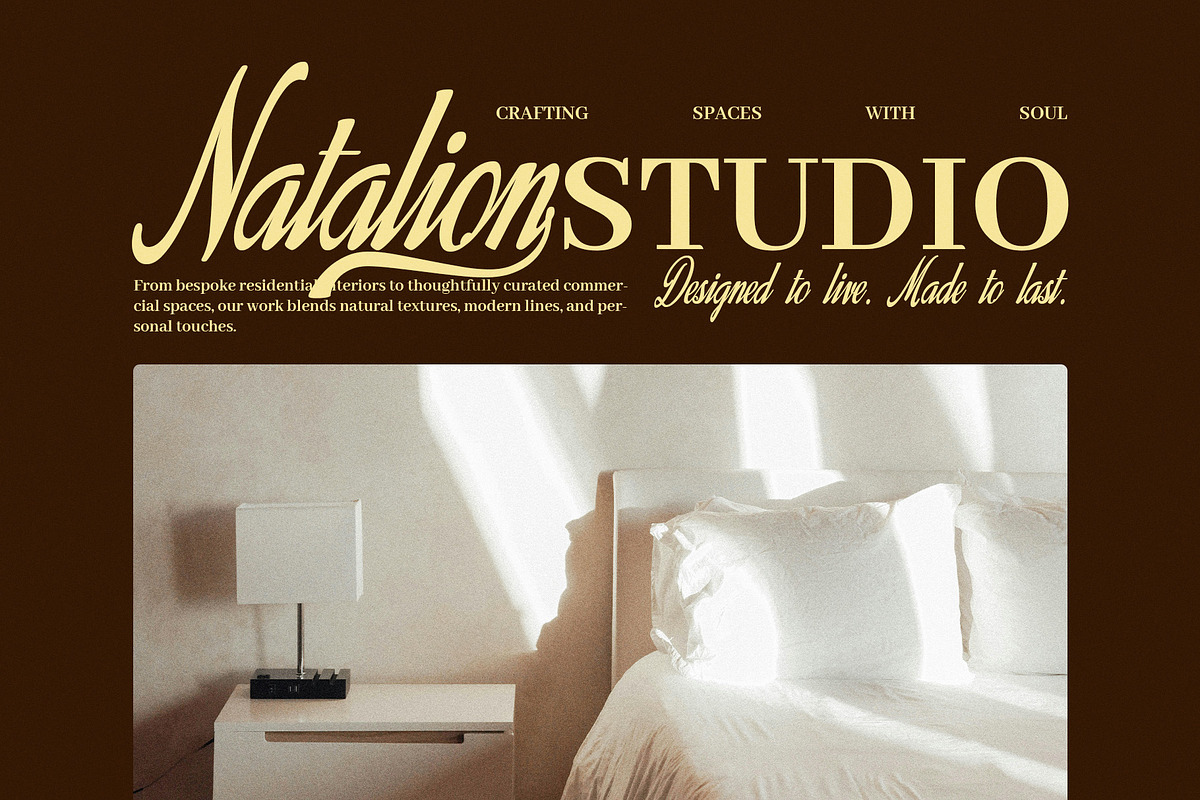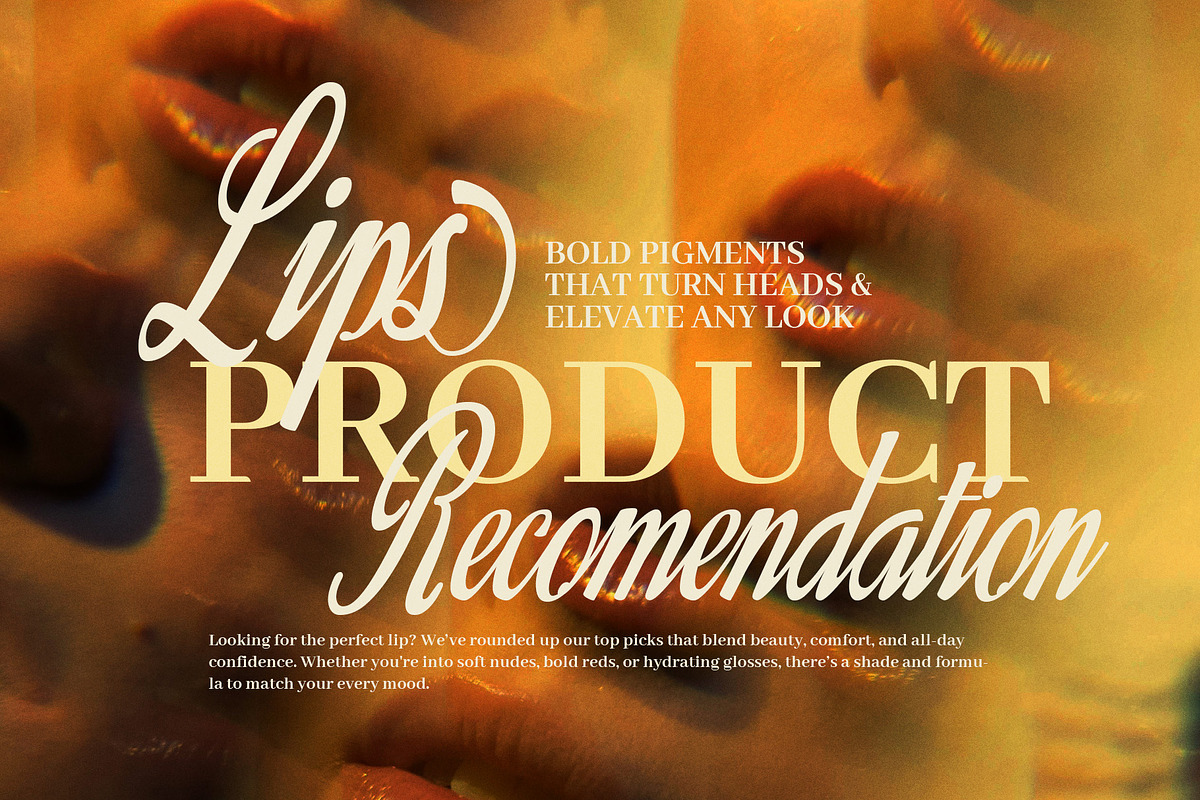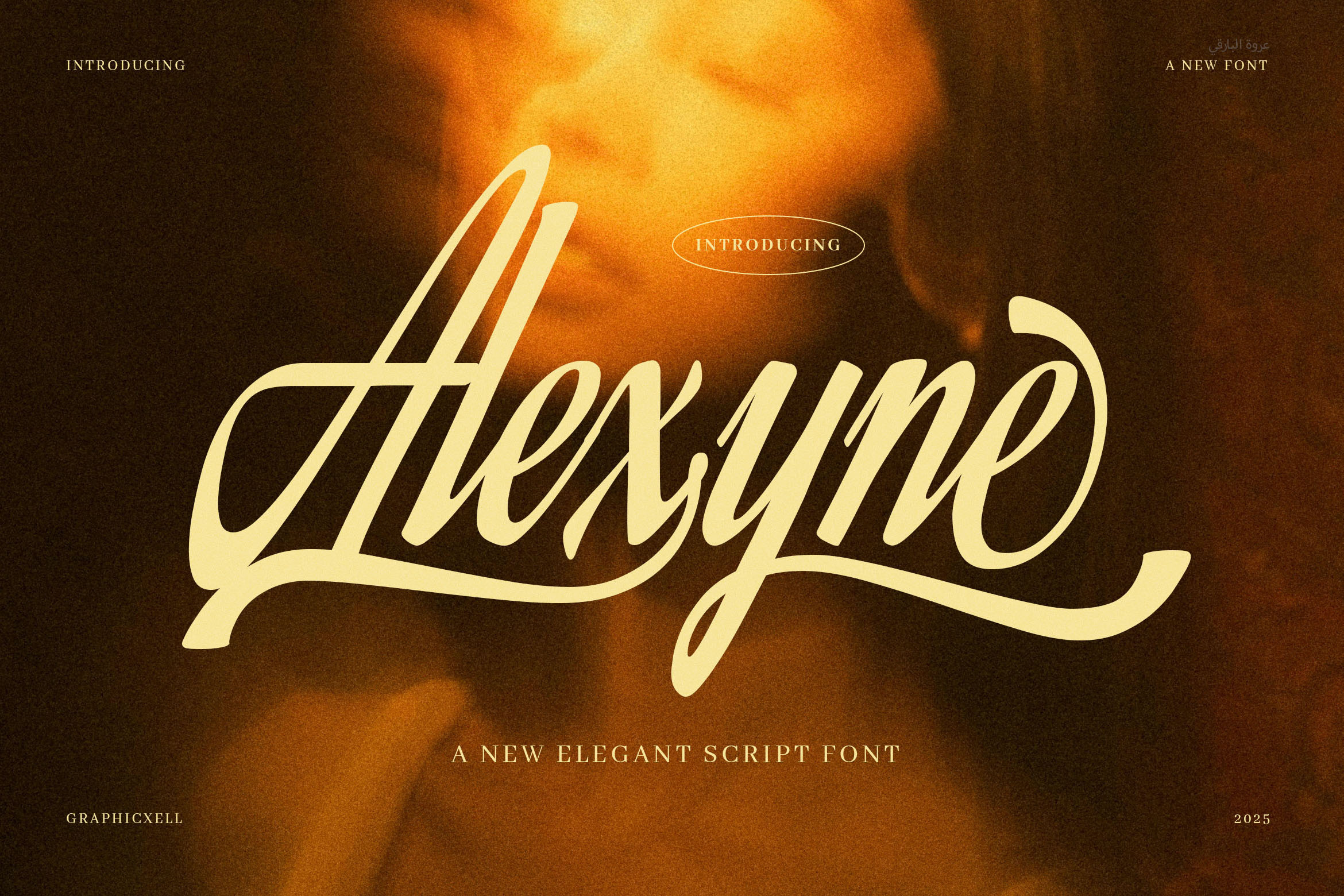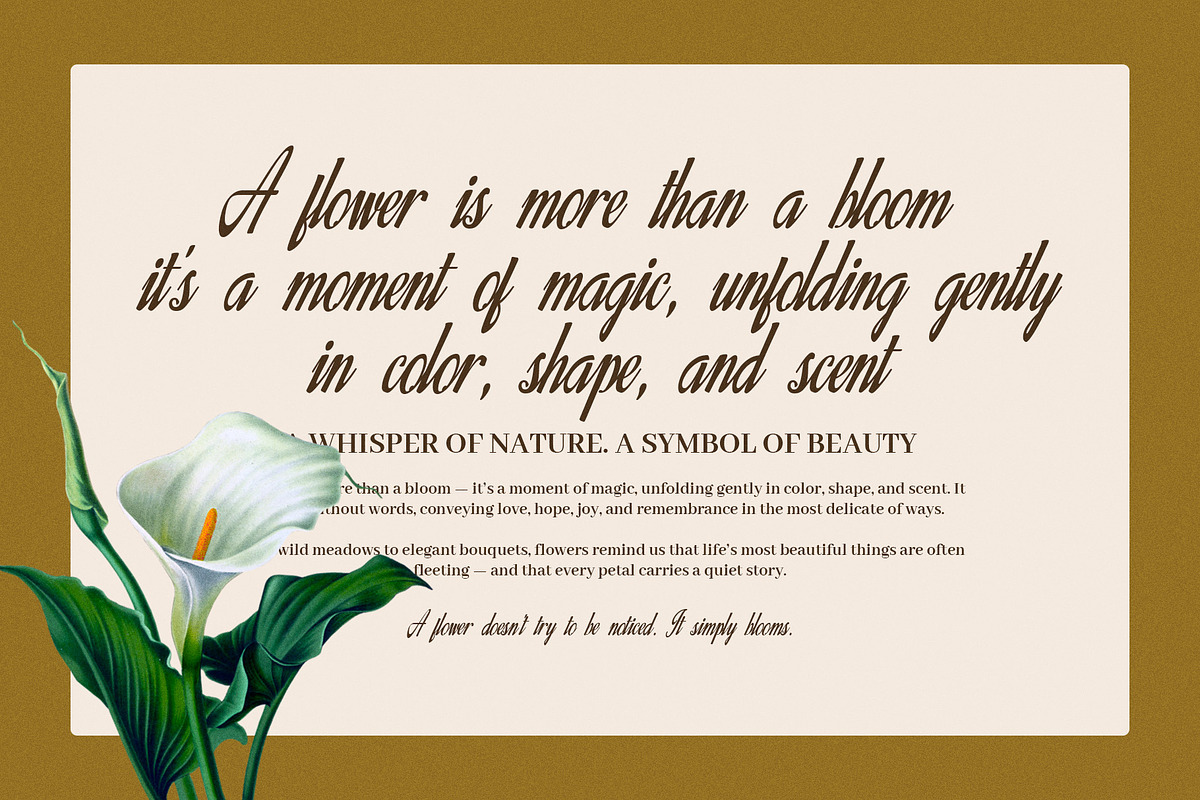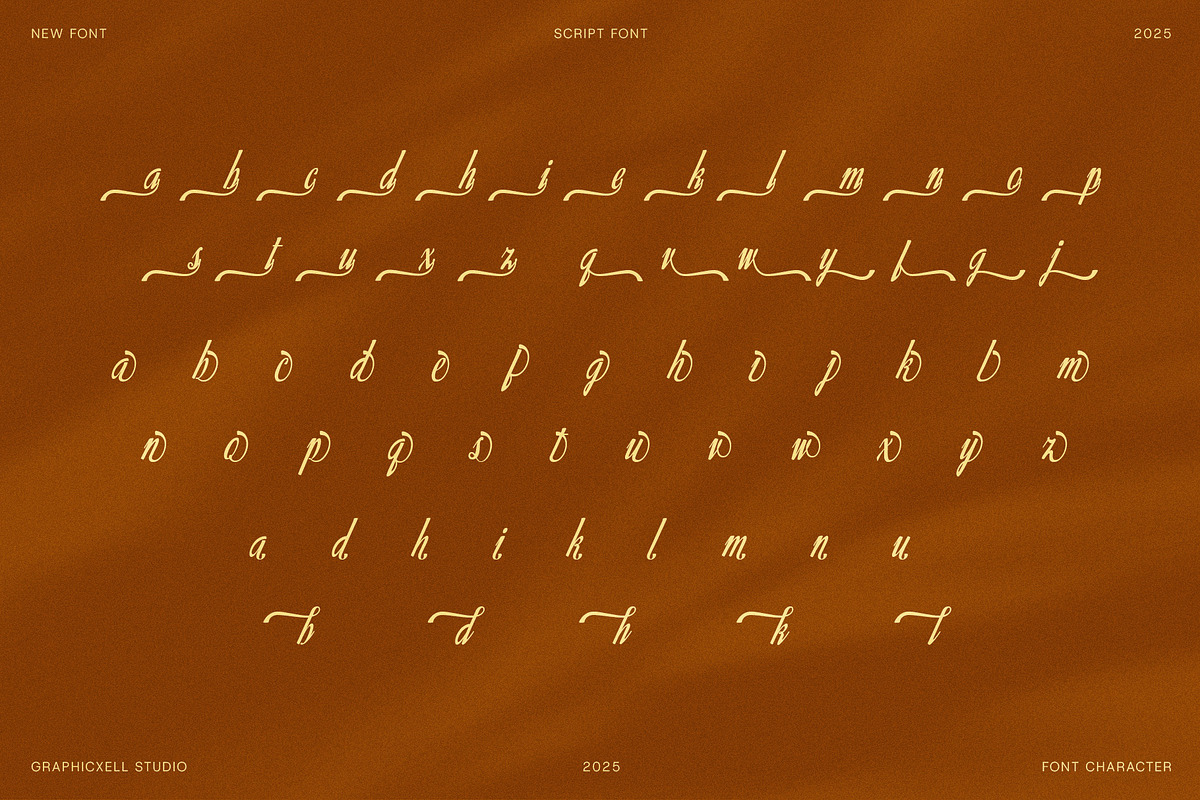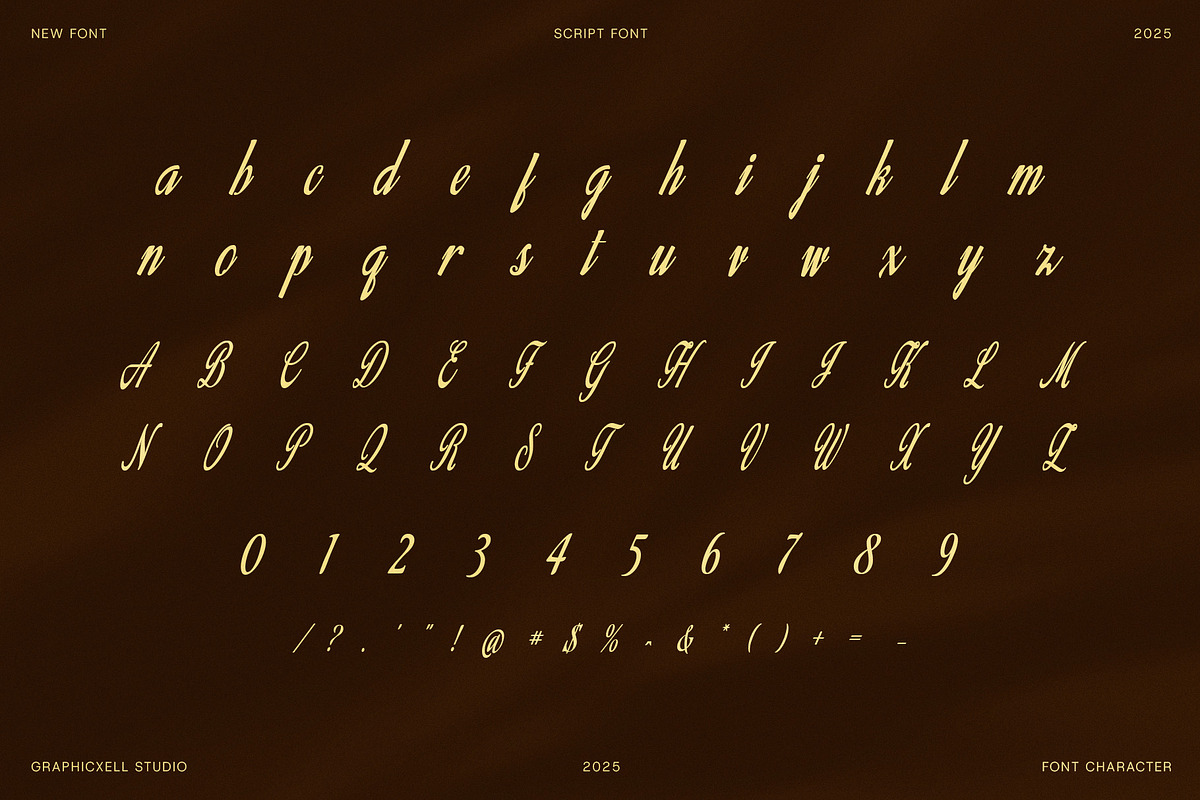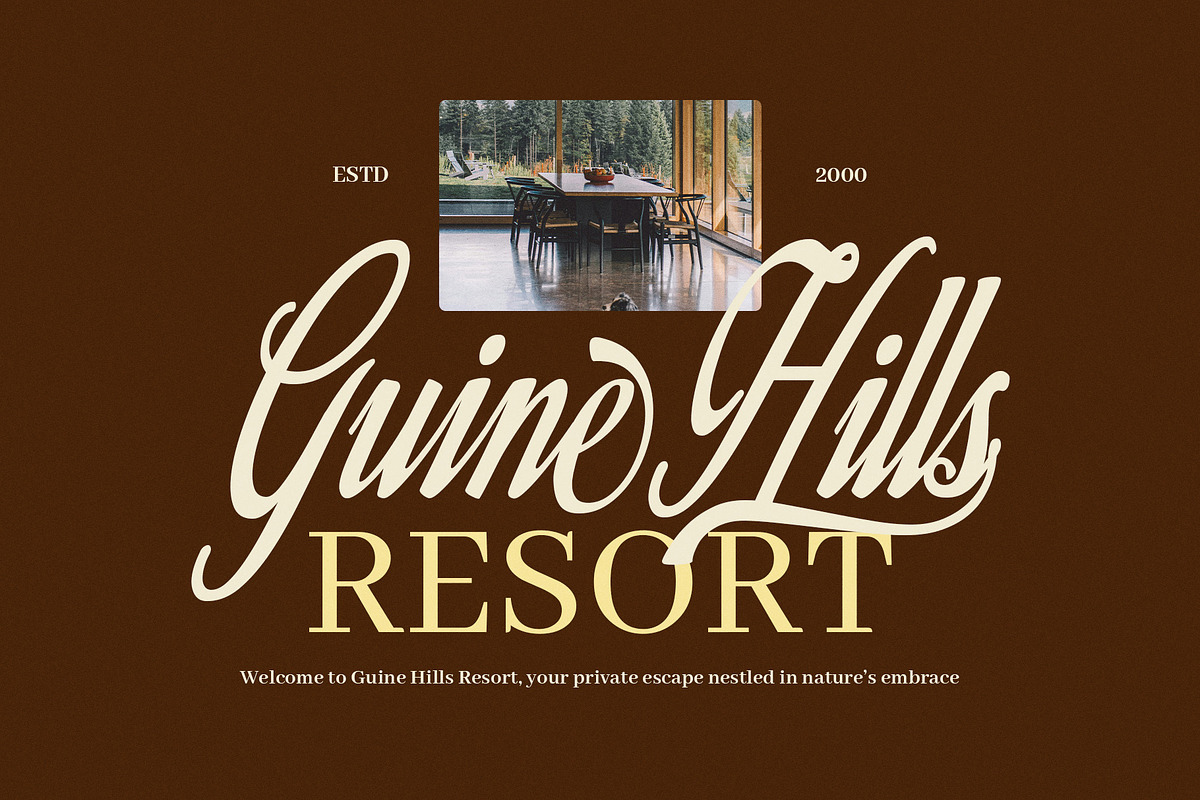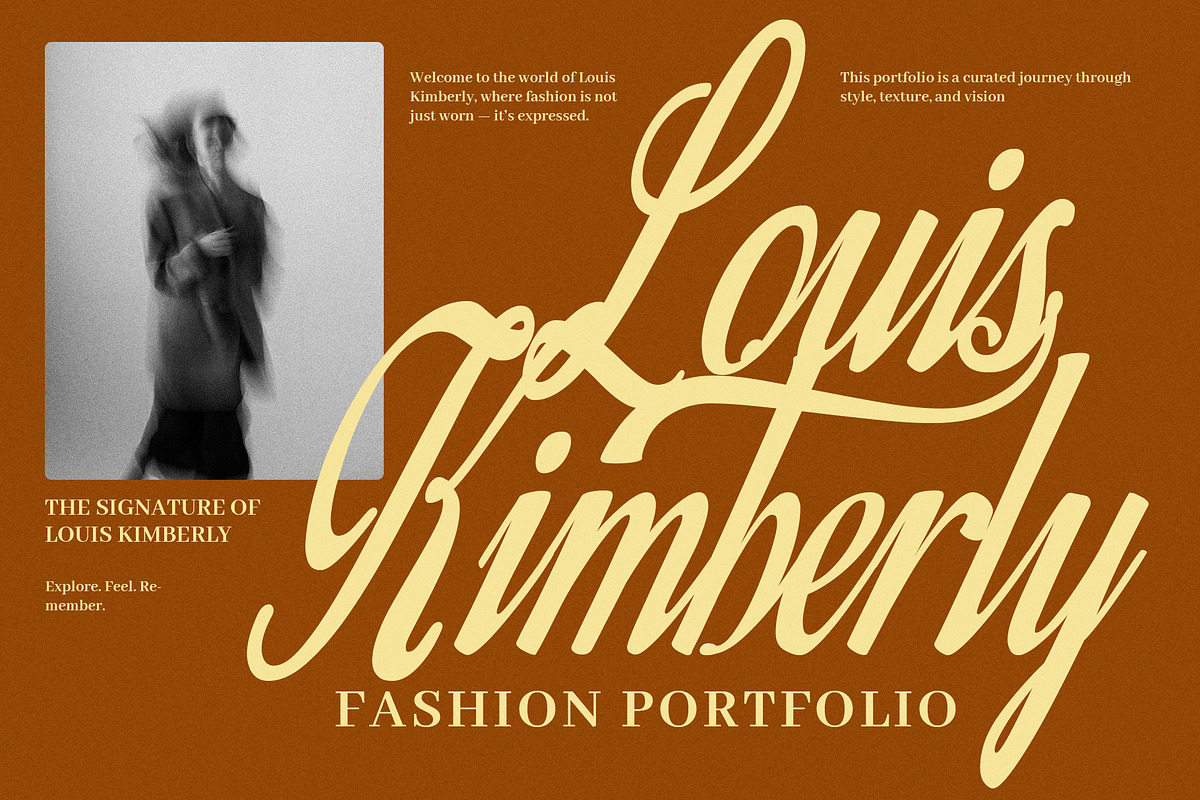
Alexyne Elegant Script Font
Alexyne is a modern elegant script font that beautifully blends sophistication, charm, and artistry. Every curve flows gracefully, while each stroke carries a confident rhythm that brings words to life. Because of its refined style and soft movement, this font feels timeless and modern at once.
It captures the warmth of hand-drawn calligraphy, yet it remains clean and professional for commercial use. Moreover, Alexyne’s sleek letterforms and natural ligatures make every design look intentional and polished. As a result, it fits both minimal and luxurious branding styles with ease.
This font doesn’t just decorate—it communicates emotion. Its gentle strokes convey confidence and beauty, turning simple words into memorable impressions. Whether you’re creating a brand identity or crafting personal stationery, Alexyne helps your message shine through with grace and personality.
Alexyne is perfect for:
Fashion and beauty branding projects
Wedding invitations and elegant stationery
Boutique packaging and luxury products
Editorial layouts and social media posts
Signature logos and creative advertisements
Additionally, Alexyne includes uppercase, lowercase, numerals, punctuation, ligatures, and alternates. It also supports multiple languages and comes in OTF and TTF formats, allowing easy use in any design platform. Therefore, you can rely on its versatility for both print and digital projects.
Because of its elegant details, Alexyne suits every setting where style and emotion matter. It enhances typography with flow, balance, and sophistication. When used thoughtfully, it transforms text into visual art that feels timeless and expressive.
Choose Alexyne to add confidence, emotion, and harmony to your creative work—where elegance meets modern design in perfect rhythm.